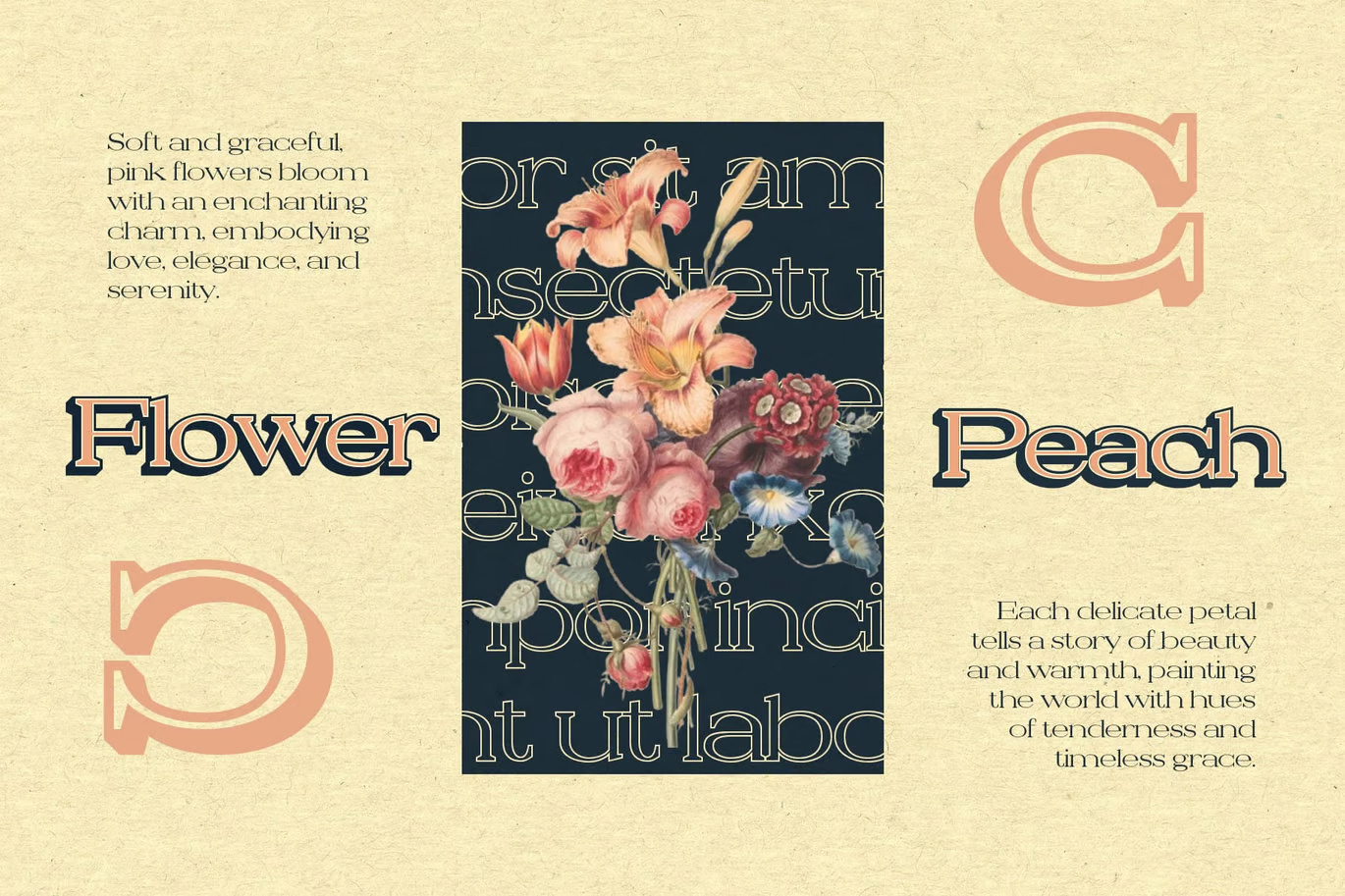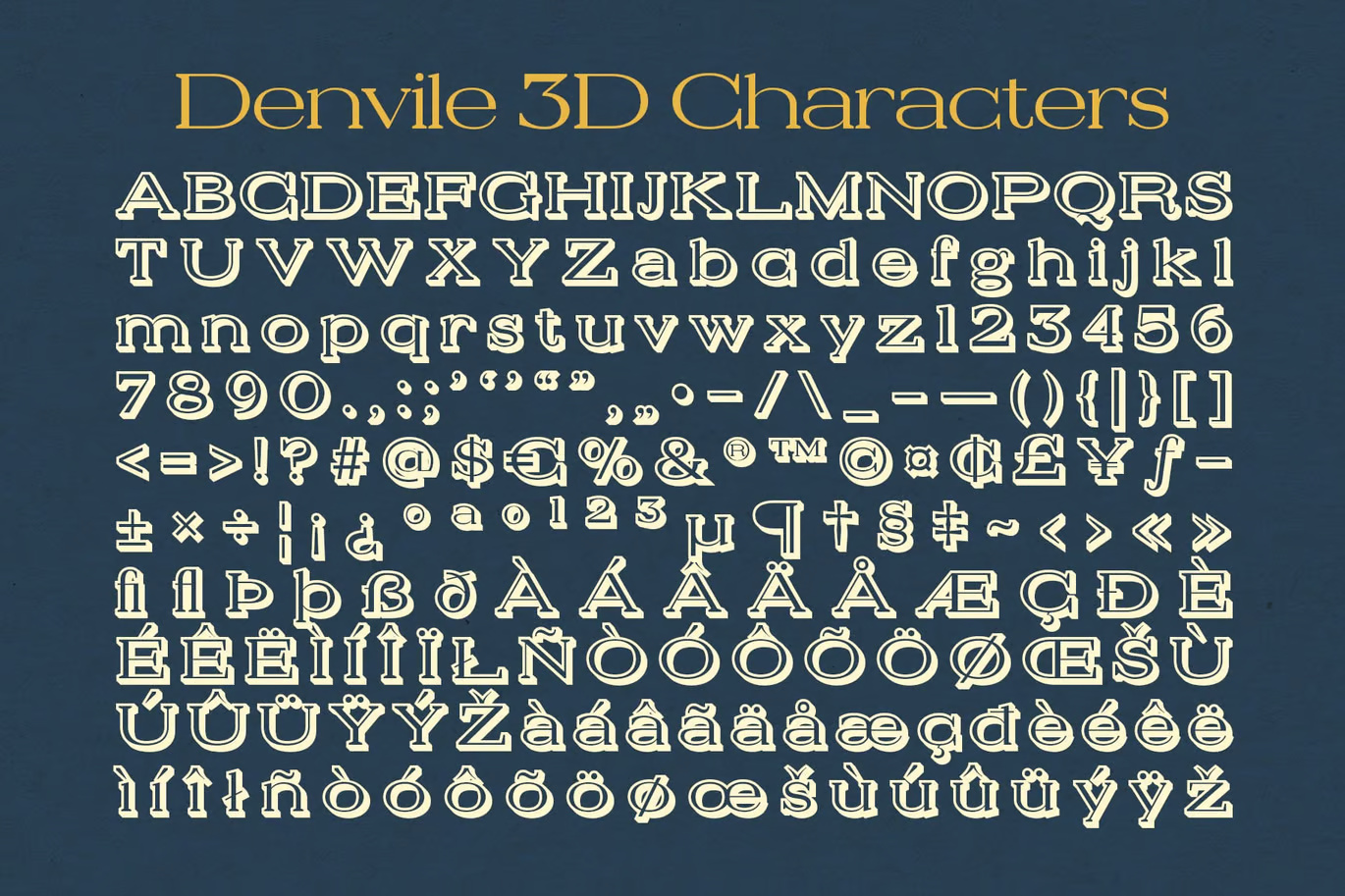
Denvile 3D
Denvile 3D is a modern serif font that combines wide letterforms with a minimalist yet powerful aesthetic. Its refined design conveys a sense of luxury, confidence, and sophistication, making it an ideal choice for high-end branding, editorial design, and premium packaging.
The striking 3D effect adds depth and dimension to Denvile 3D, giving it a bold, eye-catching appeal. This feature enhances its visibility in display settings such as logos, magazine covers, and product labels. Whether used in print or digital media, the 3D structure creates a sense of movement and modernity, making the font more dynamic and engaging.
Denvile 3D maintains a balance between modern sophistication and classic refinement. The clean, structured letterforms combined with wide spacing give the font a graceful, high-end appeal. This makes it perfect for designs that require both strength and elegance, such as fashion branding, luxury advertising, and corporate identity.
Designed for exclusivity, Denvile 3D is best suited for premium projects that demand a strong yet refined presence. Whether for high-fashion labels, luxury product packaging, or upscale editorial layouts, this font offers a unique blend of grandeur and modern versatility.